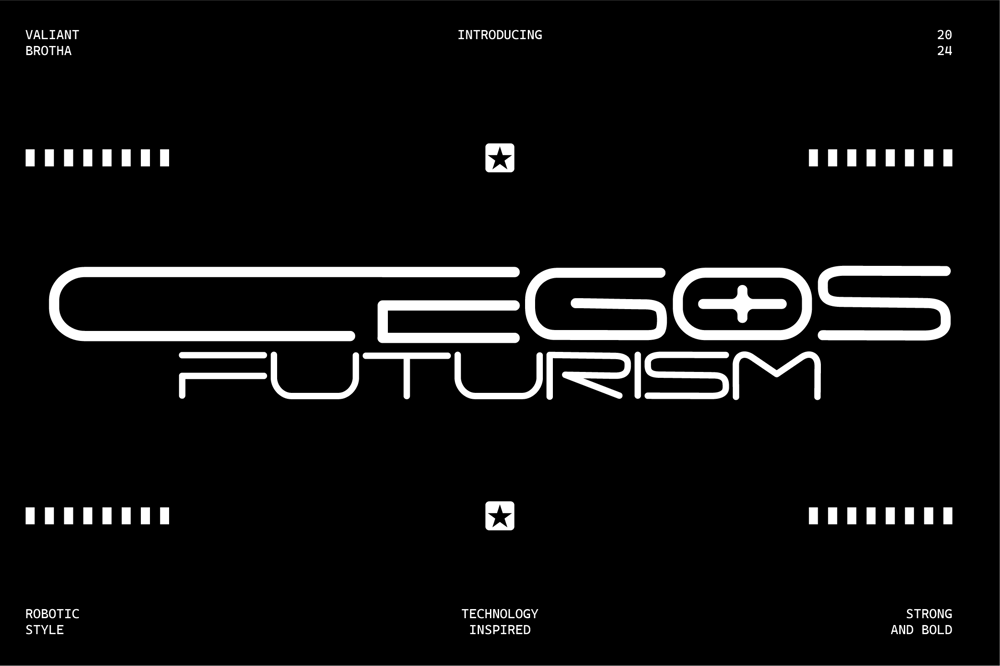
Cegos Font Family was designed by Agus Prima and published by Valiantbrotha. Cegos contains 1 styles and family package options. Cegos is a futuristic and bold display font designed to captivate attention. With its sharp, sleek lines and techno-inspired curves, this typeface exudes modernity and innovation. Perfect for projects that demand a cutting-edge look, Cegos makes a statement whether used in logos, headlines, or digital interfaces. Its strong presence and high readability ensure that it stands out in any design, making it ideal for tech, sci-fi, or forward-thinking brands. Whether you’re crafting the next big thing in the digital world or pushing creative boundaries, Cegos is the perfect choice for an impactful and bold design.